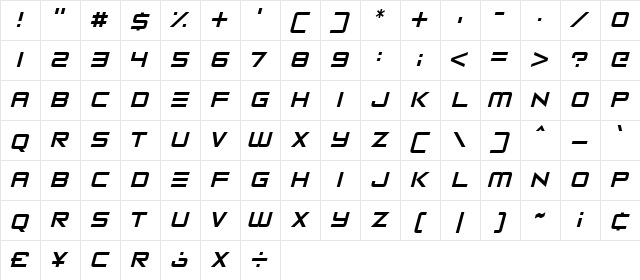
Robot Reavers Regular
| Designer | Darrell Flood |
Design Context for Robot Reavers Typeface
Robot Reavers takes a measured approach to typography — its balanced proportions and neutral character make it a reliable workhorse for both digital and print work.